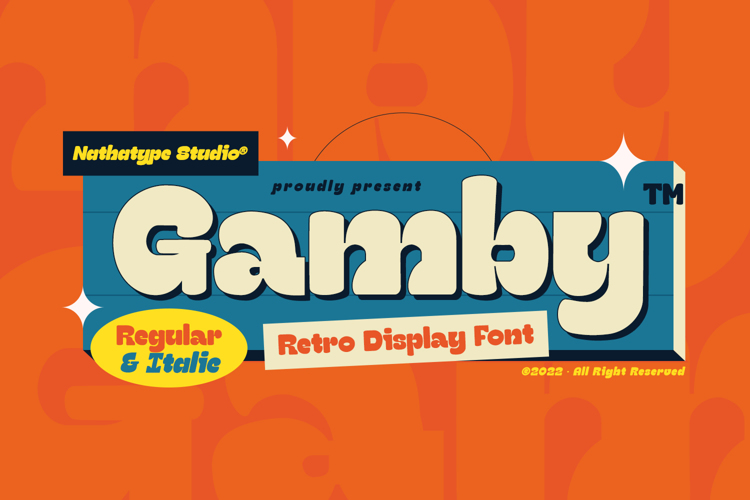
Gamby Regular Font
Product Description:
Gamby is an attractive, vintage, playful display font for your customers. Its main character is the round, thick letters in thin outlines. Gamby provides two versions, regular and italic to use for bigger-sized texts to be legible.
Features:
• Ligatures
• Multilingual Supports
• Numerals and Punctuations